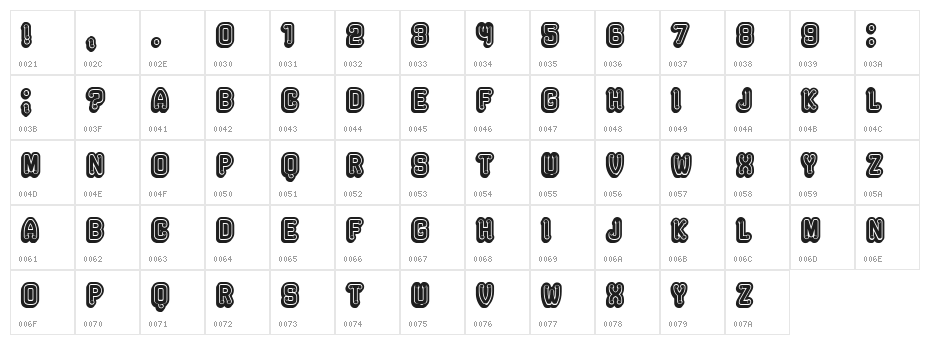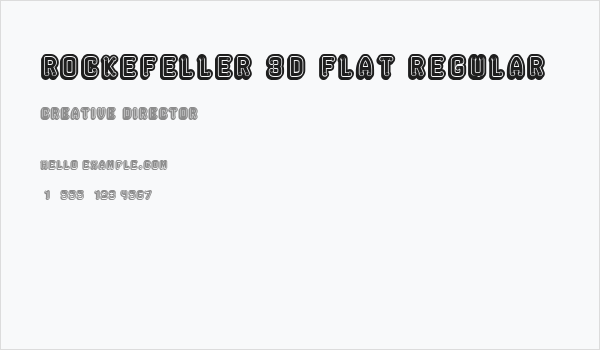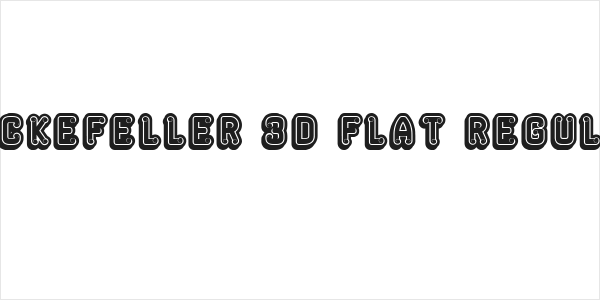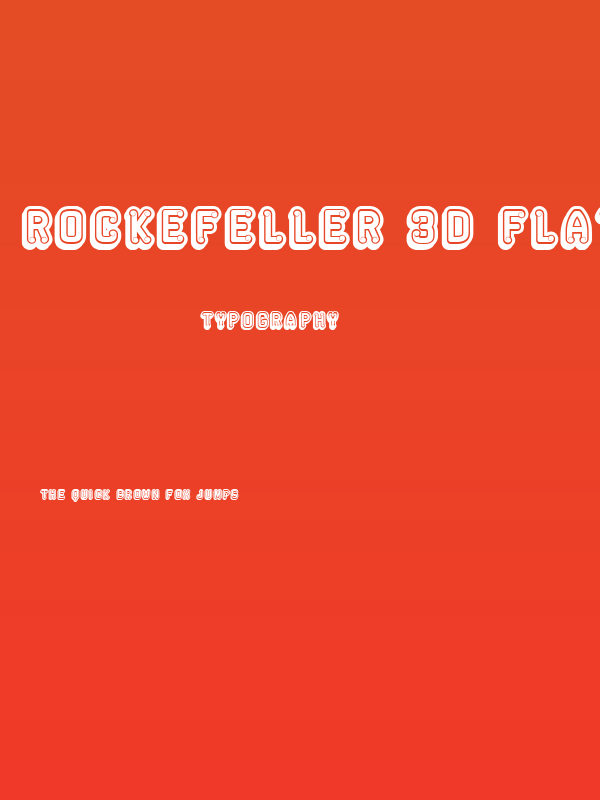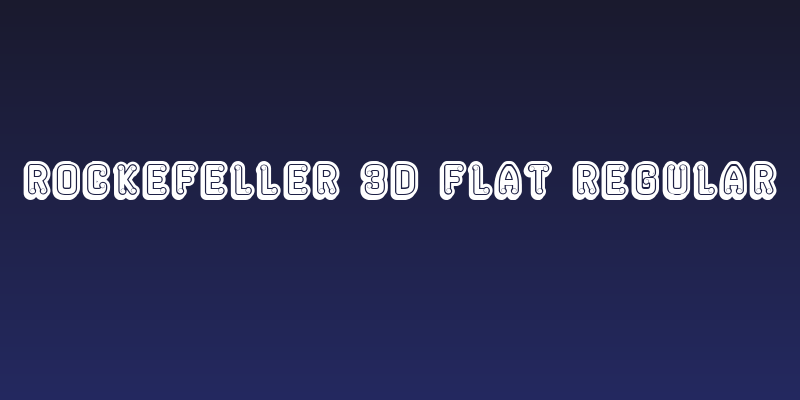
Rockefeller 3D Flat Regular Font
Rockefeller 3D Flat Regular Description
This font features a bold, three-dimensional appearance with a flat, outlined style that gives it a striking and modern look. The characters are uppercase and lowercase letters, numbers, and a selection of special characters. Each character is designed with a thick outline and an inner contour that creates a 3D effect, making it stand out. The font has a playful and decorative feel, suitable for eye-catching designs. The spacing between characters is normal, ensuring readability while maintaining its unique style. The contrast in stroke thickness is medium, providing a balanced visual weight across all characters.
| Proposed Projects | Ideal for posters, logos, headlines, and any design project that requires a bold and playful aesthetic. |